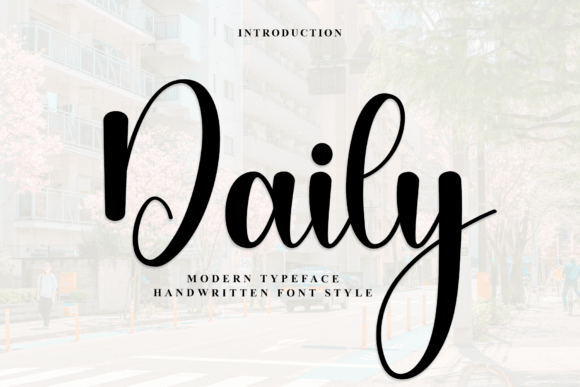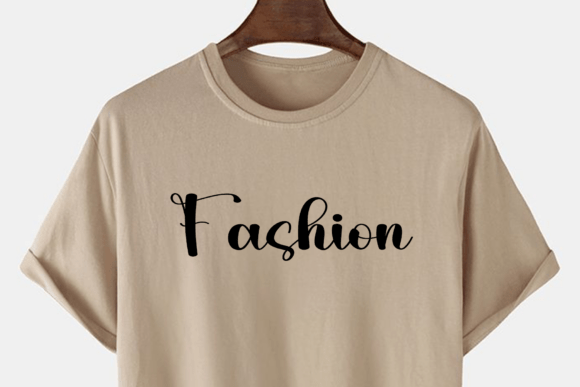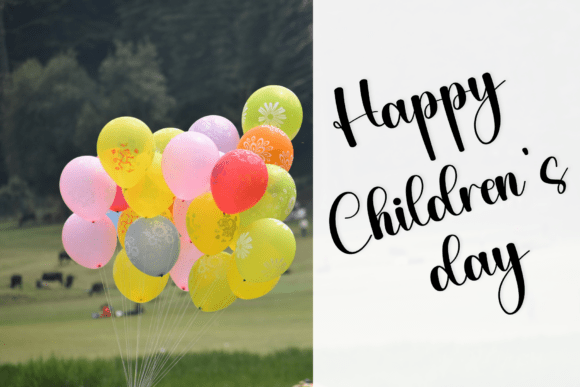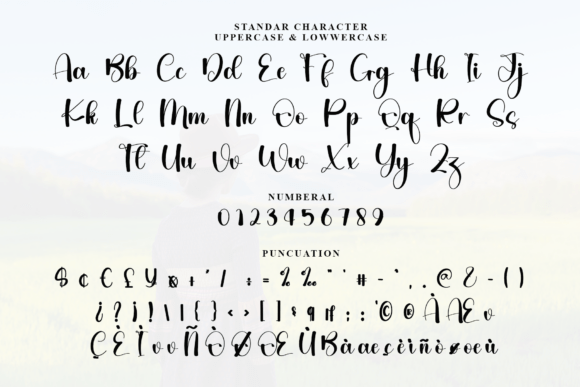
Daily Font
About the Daily Font
Explore the possibilities with Daily Font, a font that offers both beauty and functionality. Daily is a beautiful handwritten font with a natural, flowing style. It looks like elegant cursive writing, perfect for adding a personal and stylish touch to invitations, logos, and social media posts.
Daily excels in applications requiring a touch of elegance and personality, such as wedding invitations, branding for boutiques or artisanal products, and social media graphics. Its flowing nature also makes it suitable for short, impactful headlines or quotes on posters or marketing materials. However, its cursive style is less effective for body text or UI elements where readability at smaller sizes is paramount. Long paragraphs set in Daily would be difficult to read.
Its inherent sophistication pairs well with clean sans-serif fonts like Montserrat or Open Sans for a balanced contrast. For a more luxurious feel, consider pairing it with a classic serif such as Garamond or Didot. These combinations create visual harmony without sacrificing legibility.
Daily’s overall personality is sophisticated yet approachable; it conveys a sense of refined informality, making it ideal for brands aiming for a balance of elegance and approachability.
Daily Font Usage Examples
Daily Font Example